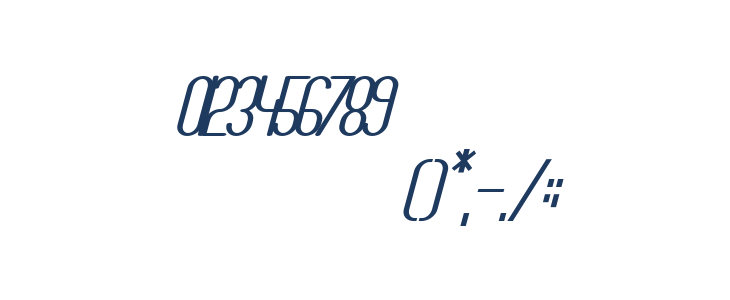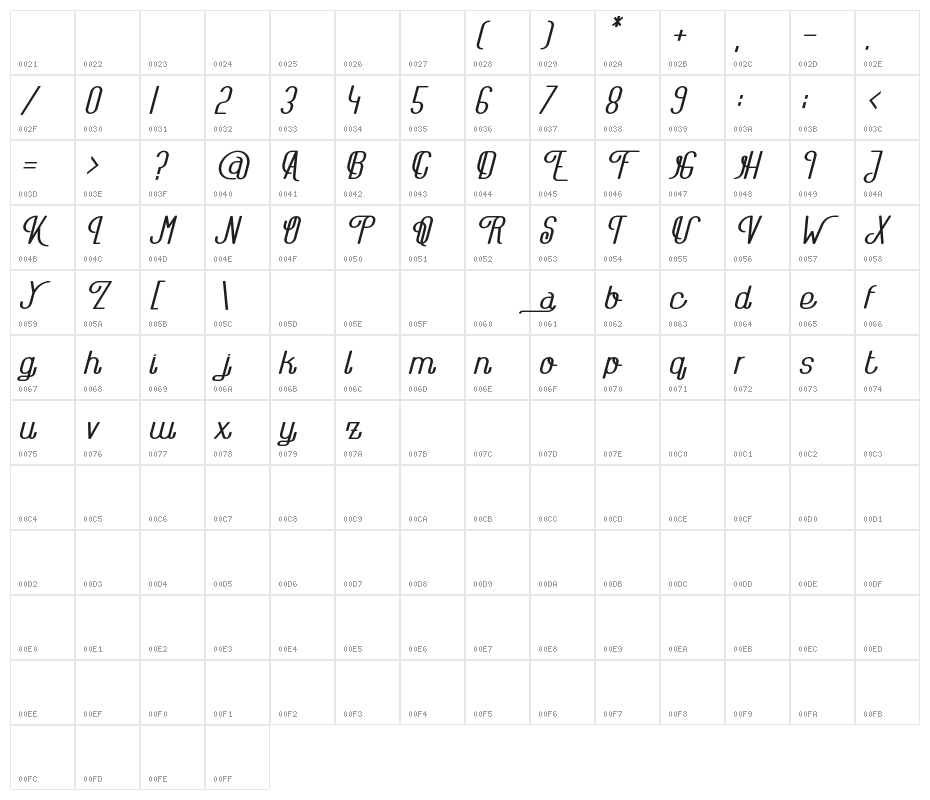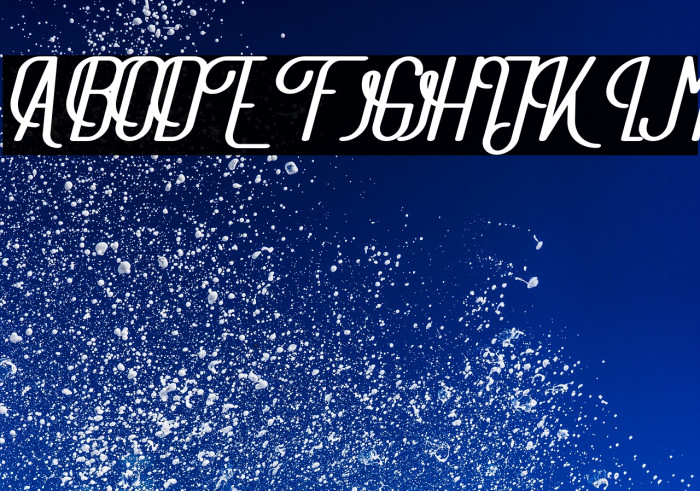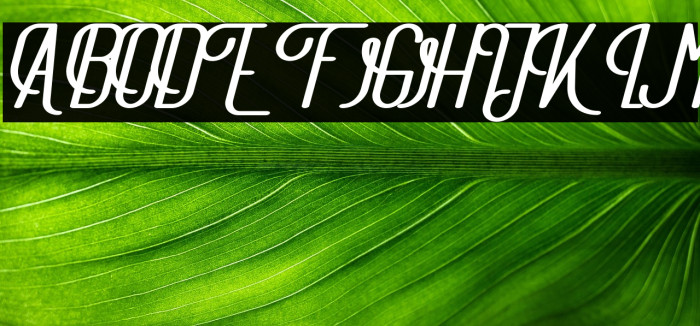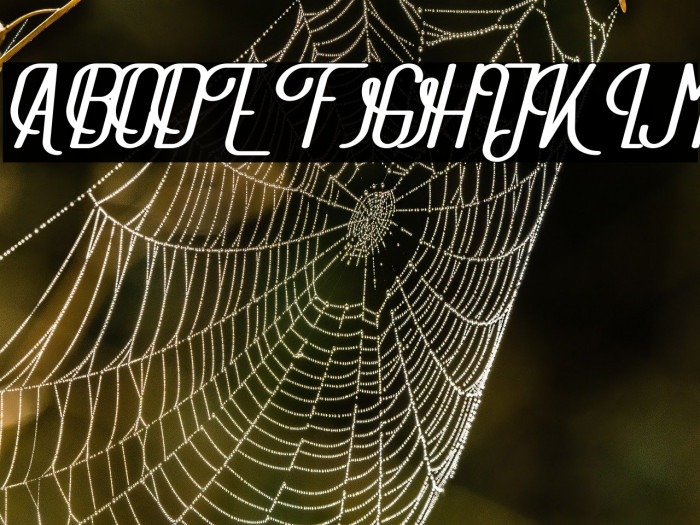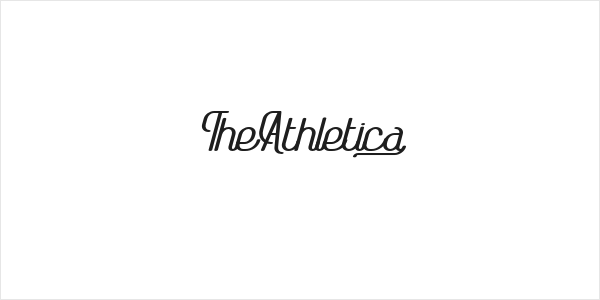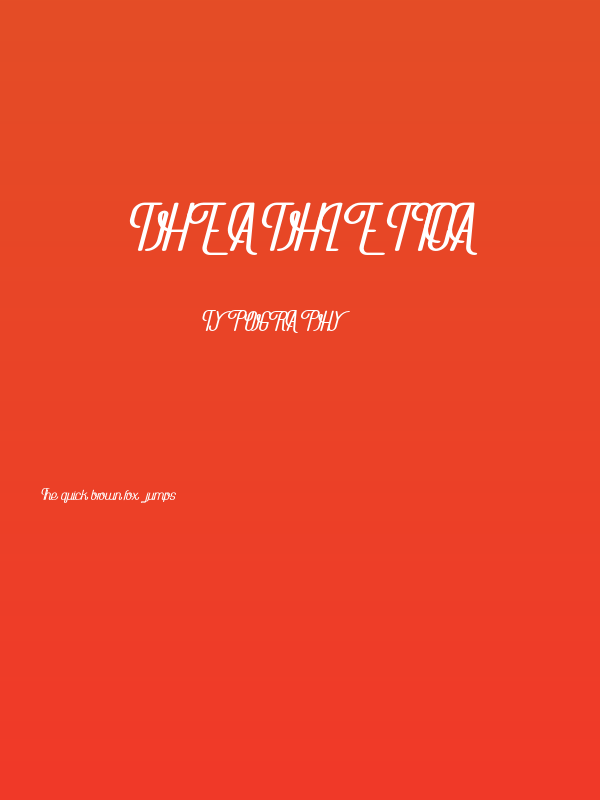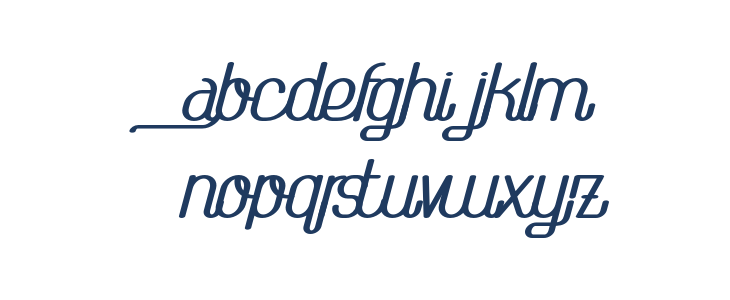
TheAthletica Font
TheAthletica Description
This font exhibits a dynamic and flowing script style, characterized by its elegant and connected letterforms. The uppercase letters are bold and expressive, with sweeping curves and a sense of movement that suggests a handwritten quality. The lowercase letters maintain this fluidity, offering a harmonious blend of form and function. The numerals are consistent with the overall style, providing a cohesive look across all characters. The special characters are thoughtfully integrated, ensuring versatility in various design applications. This font's unique style makes it suitable for projects that require a personal touch or a sense of sophistication.
| Overall Style | Elegant, Handwritten |